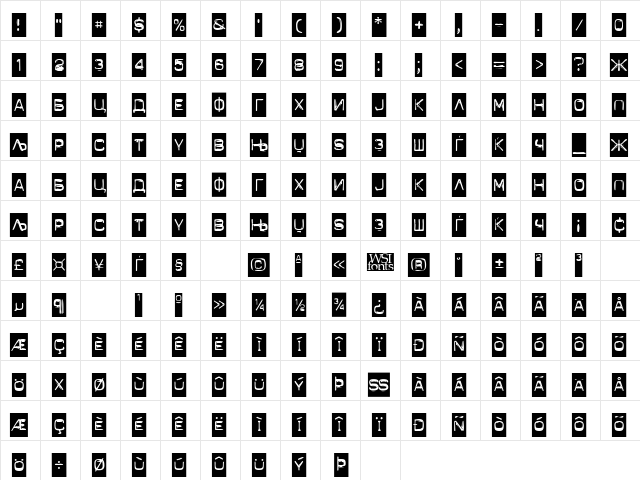
X_Blackout Normal
Design Context for X_Blackout Typeface
X_Blackout is a composed and adaptable typeface that performs quietly and consistently across a wide range of design contexts.